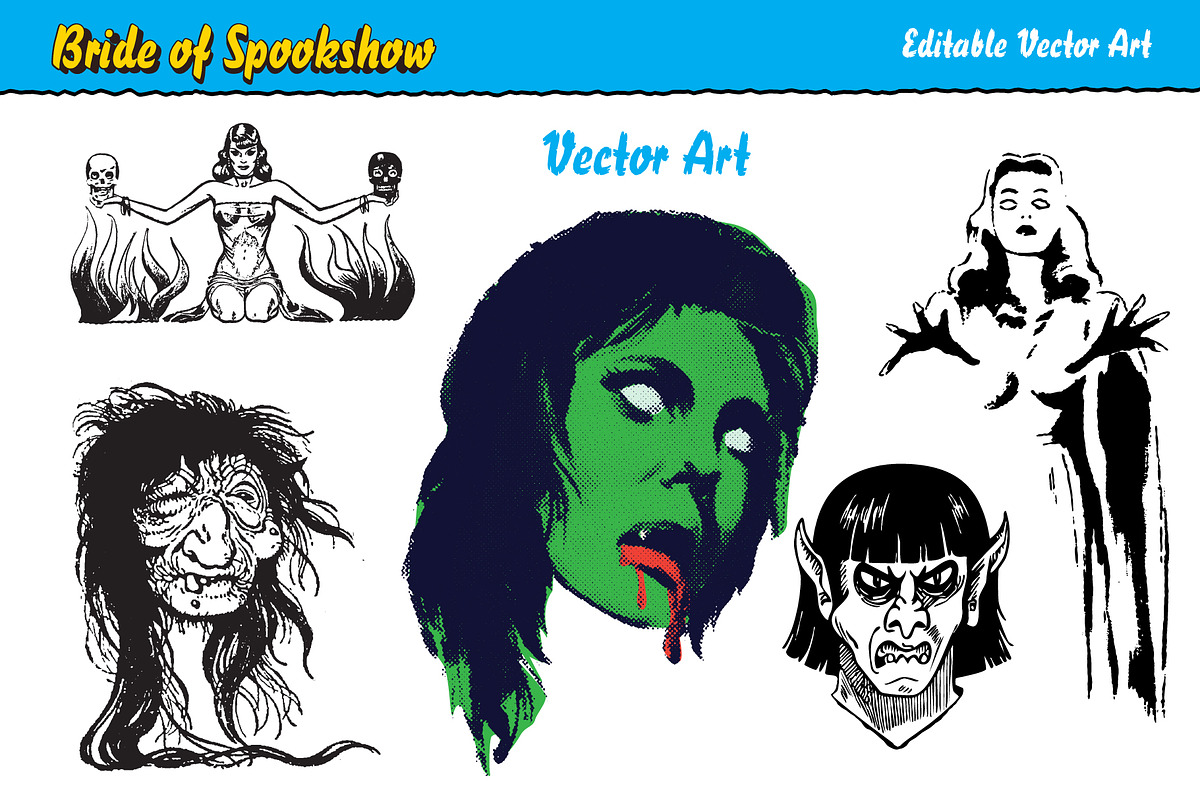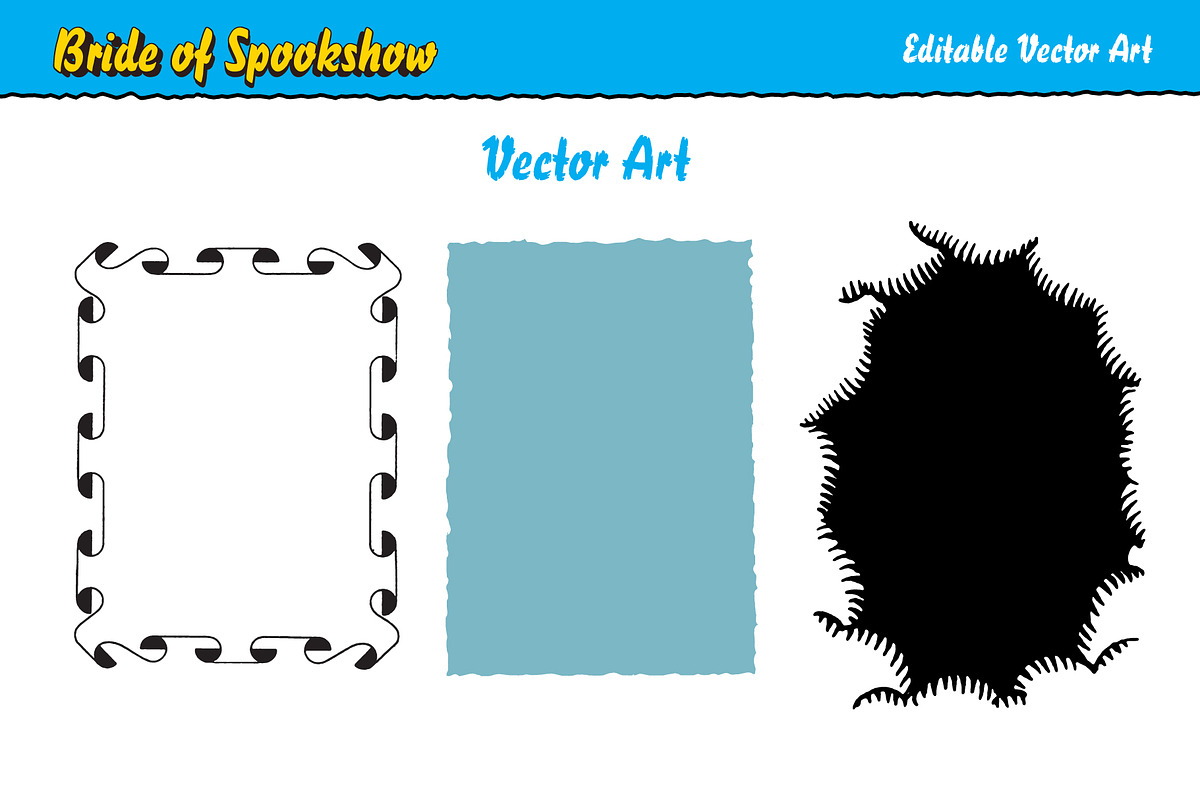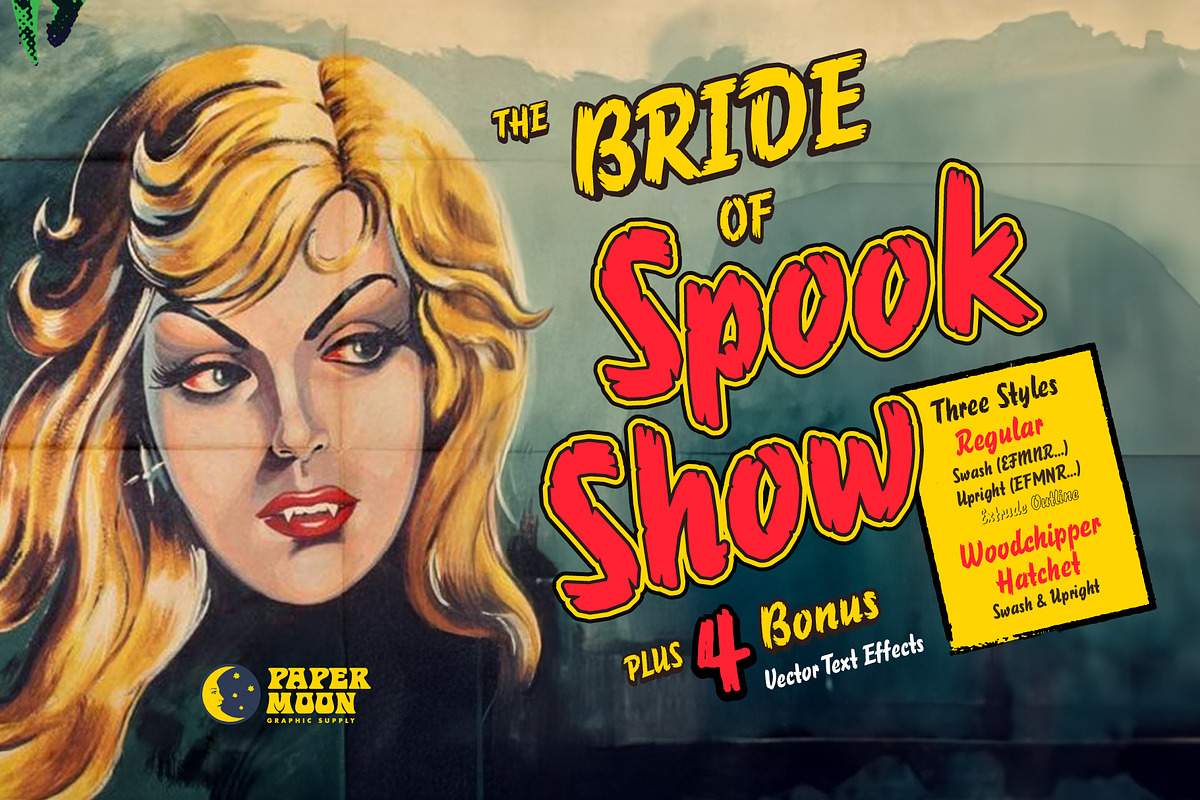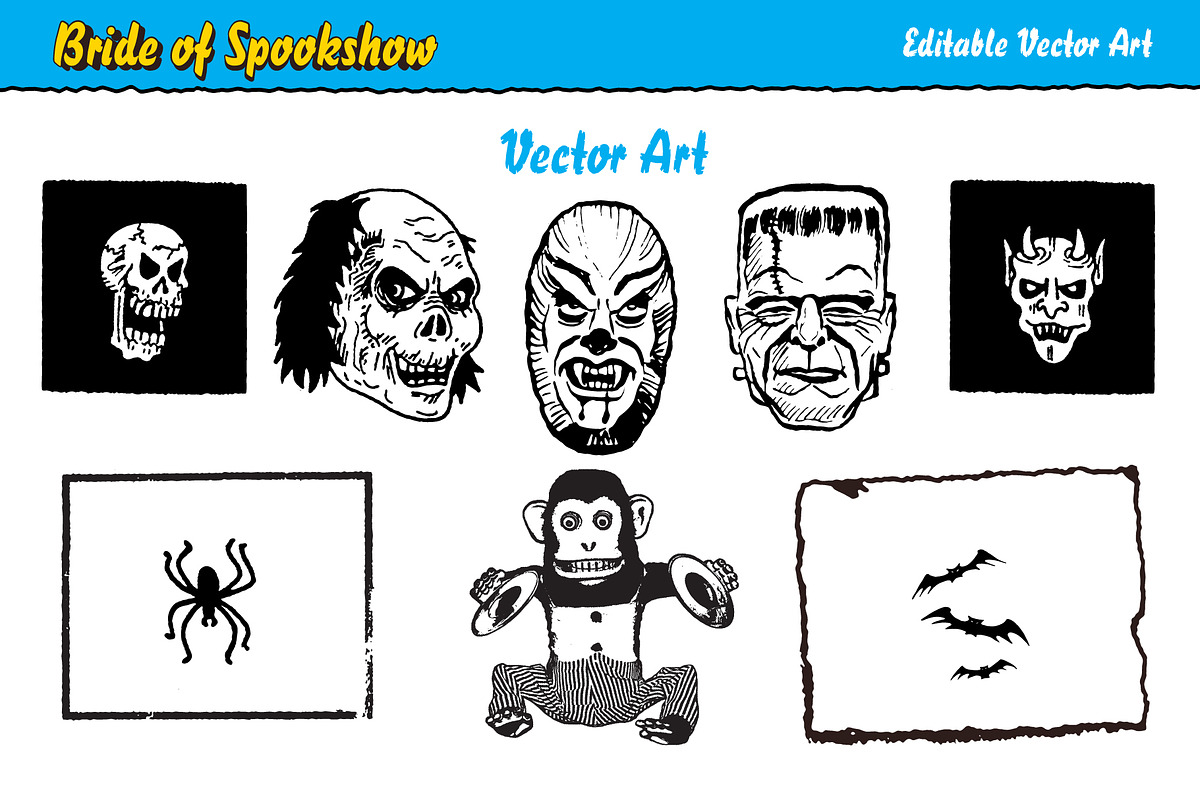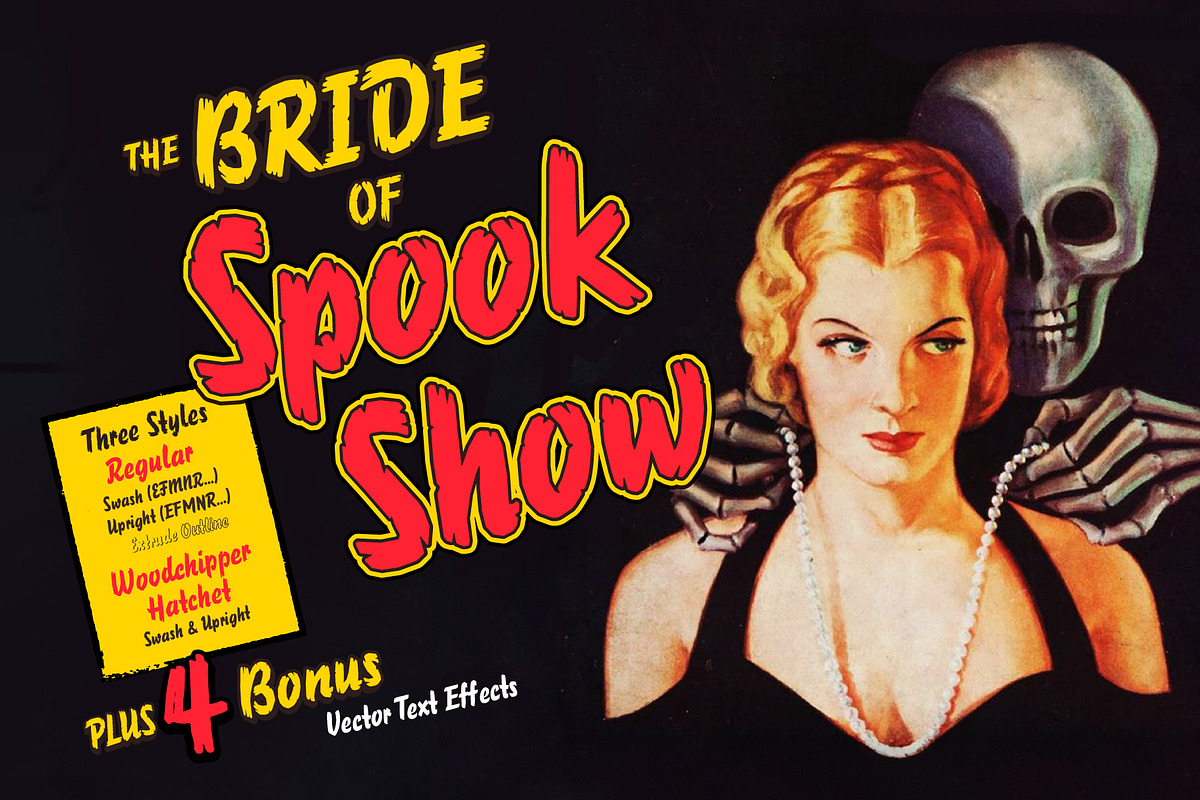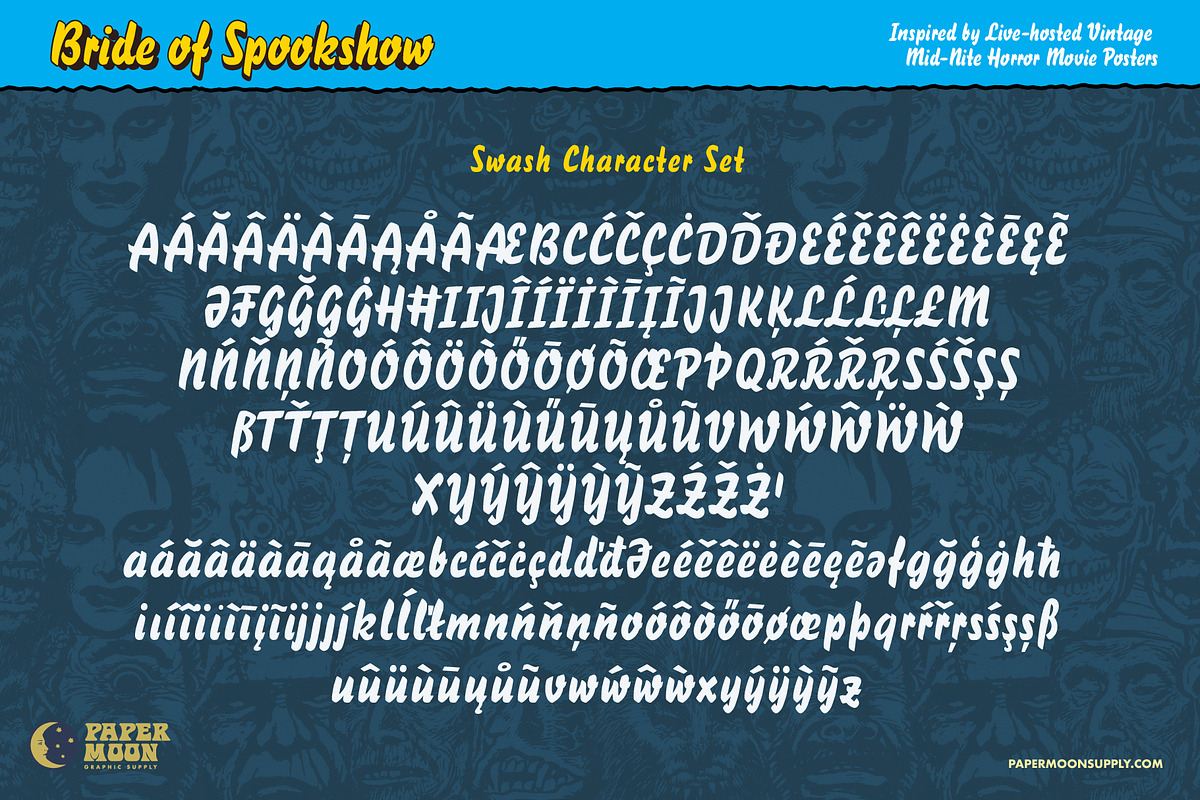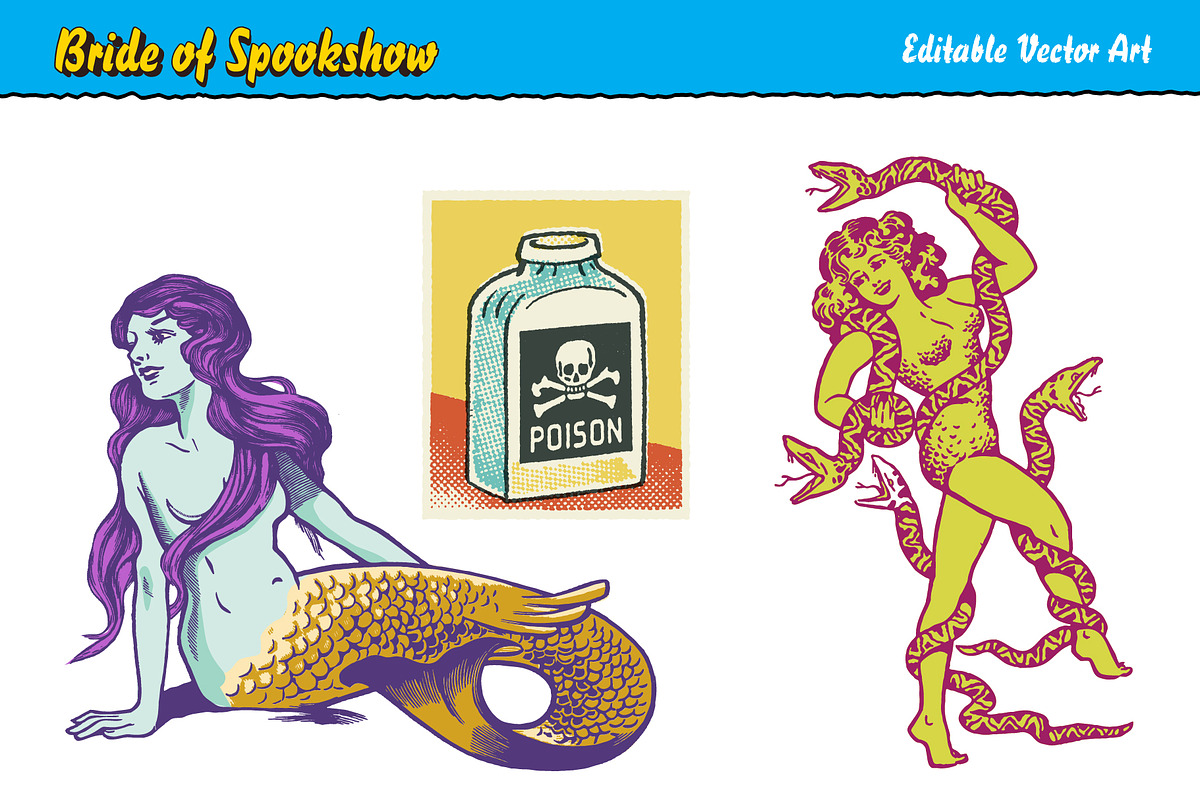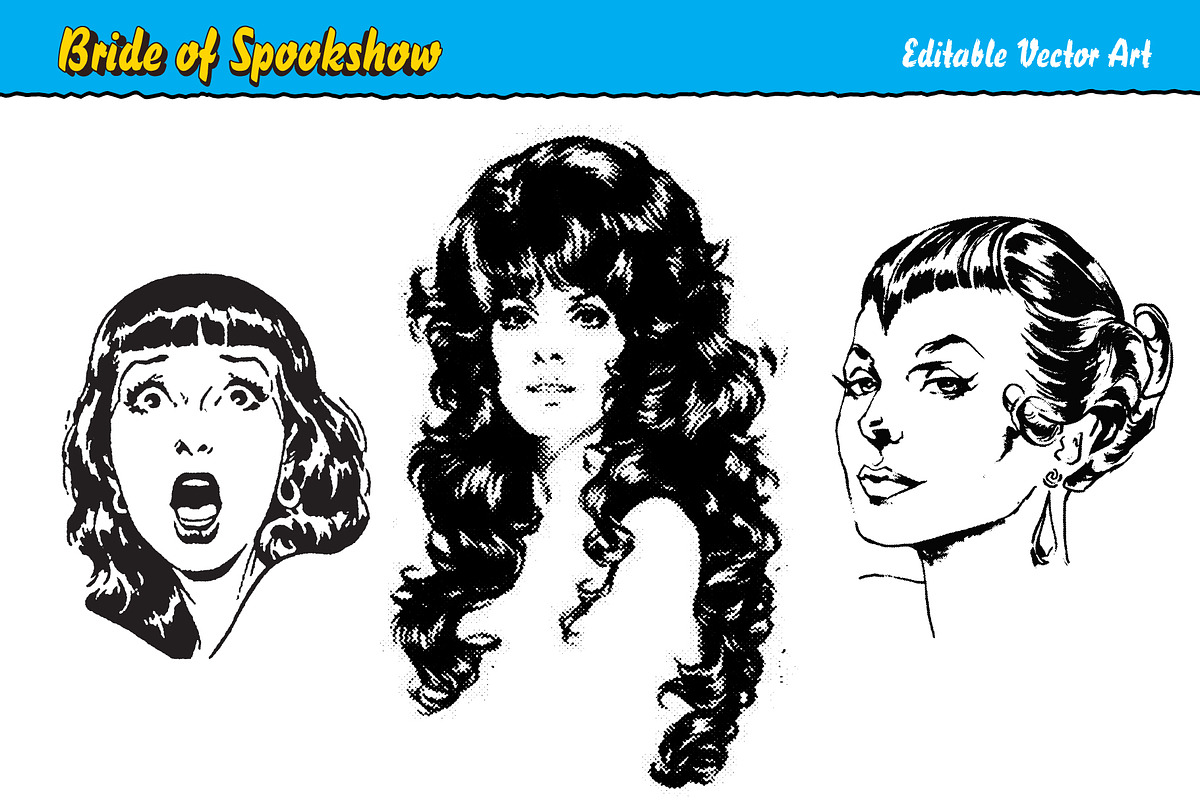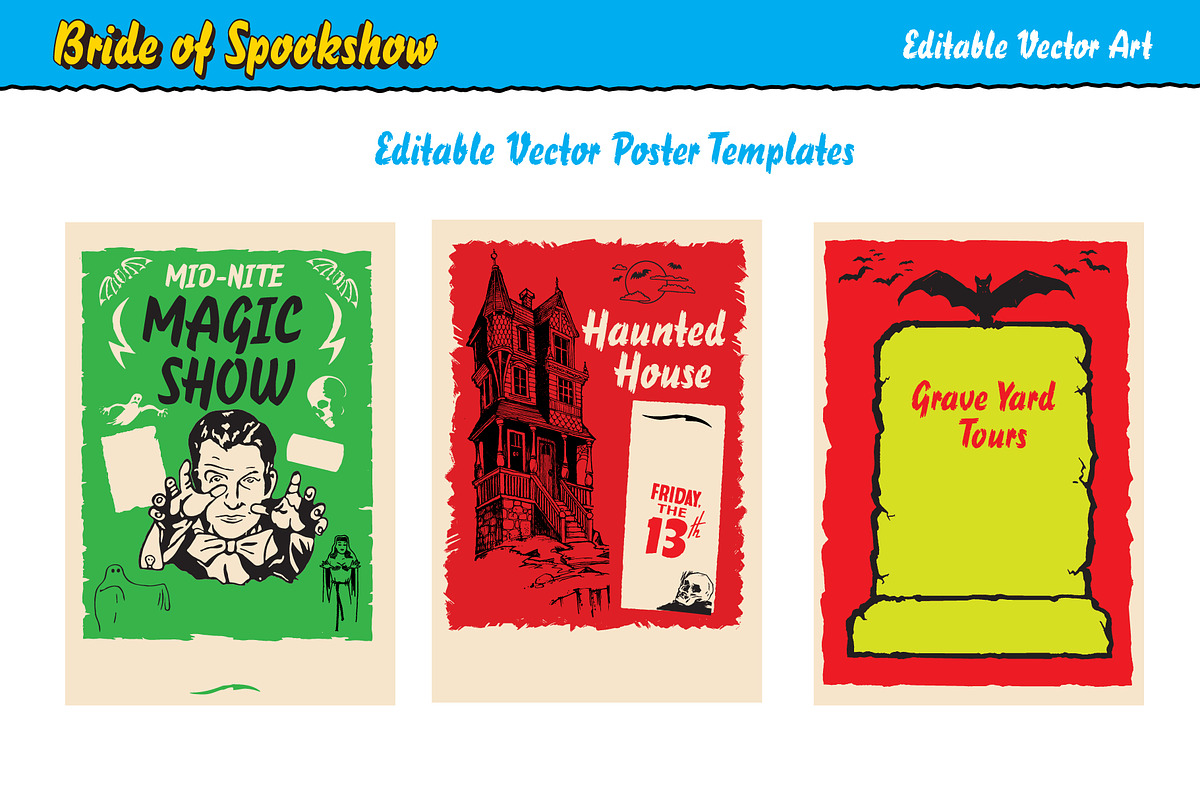
Bride of Spook Show Collection
PM Bride of Spook Show Design Collection
Capture spooky season and vintage horror vibes, or create your own Spook Show poster with the Bride of SpookShow Design Collection — a multi-style font vector image system designed to add bold, authentic retro style to your spooky season designs. Inspired by vintage mid-nite Spook Show posters, pulp covers, horror comics, and show card hand-lettering.
- Six styles with multiple fills and text effects
- Complete alphabet, numbers, and punctuation sets
- Advanced kerning and OpenType features
- Ligatures and contextual alternates
- Multilingual support for Western, Eastern, and Southern Europe, plus South America
- Tons of bonus horror clip art, frames, patterns, and text effects
PM Bride of Spook Show was created by award-winning illustrator and designer Scott Banks.